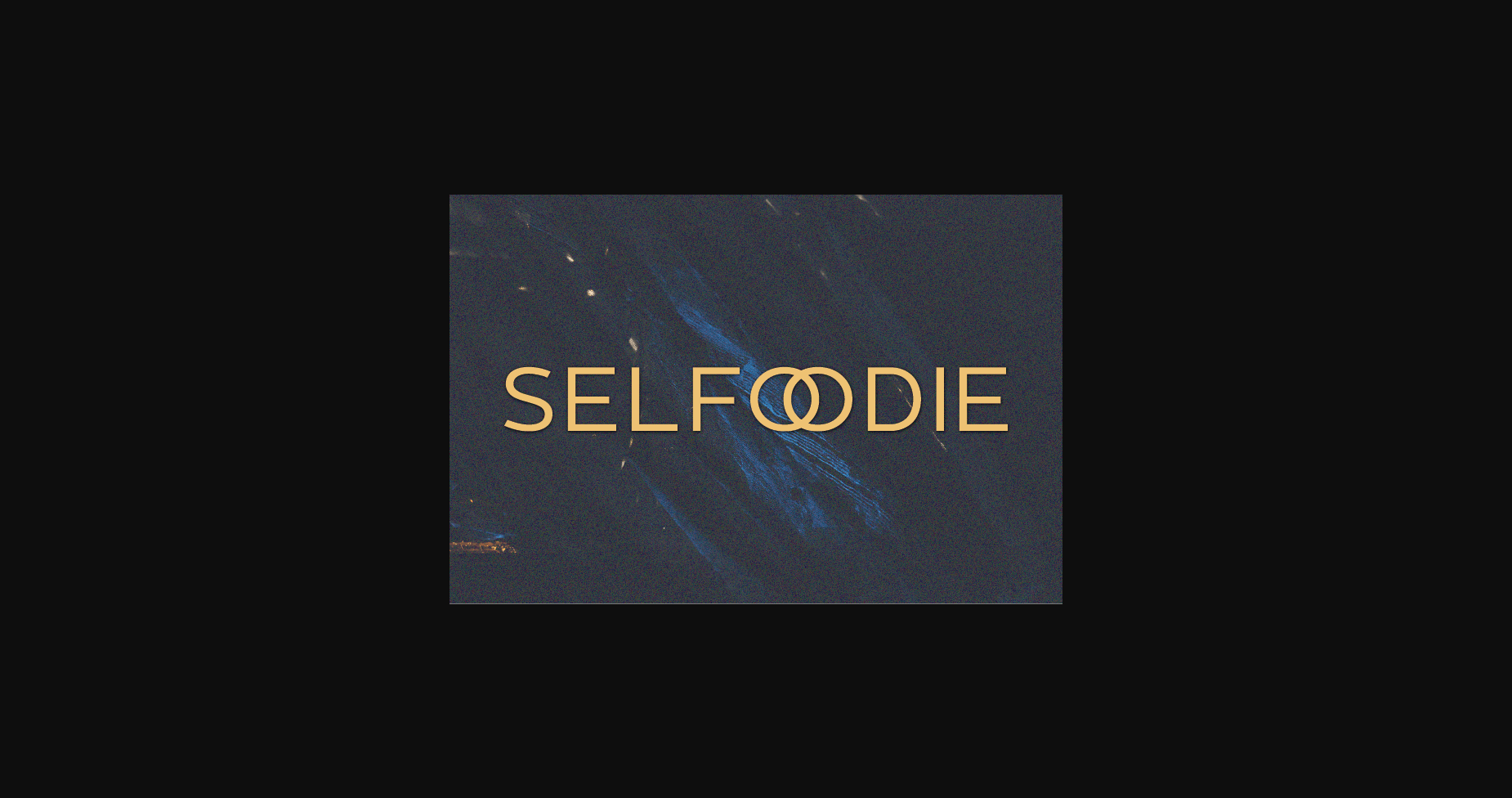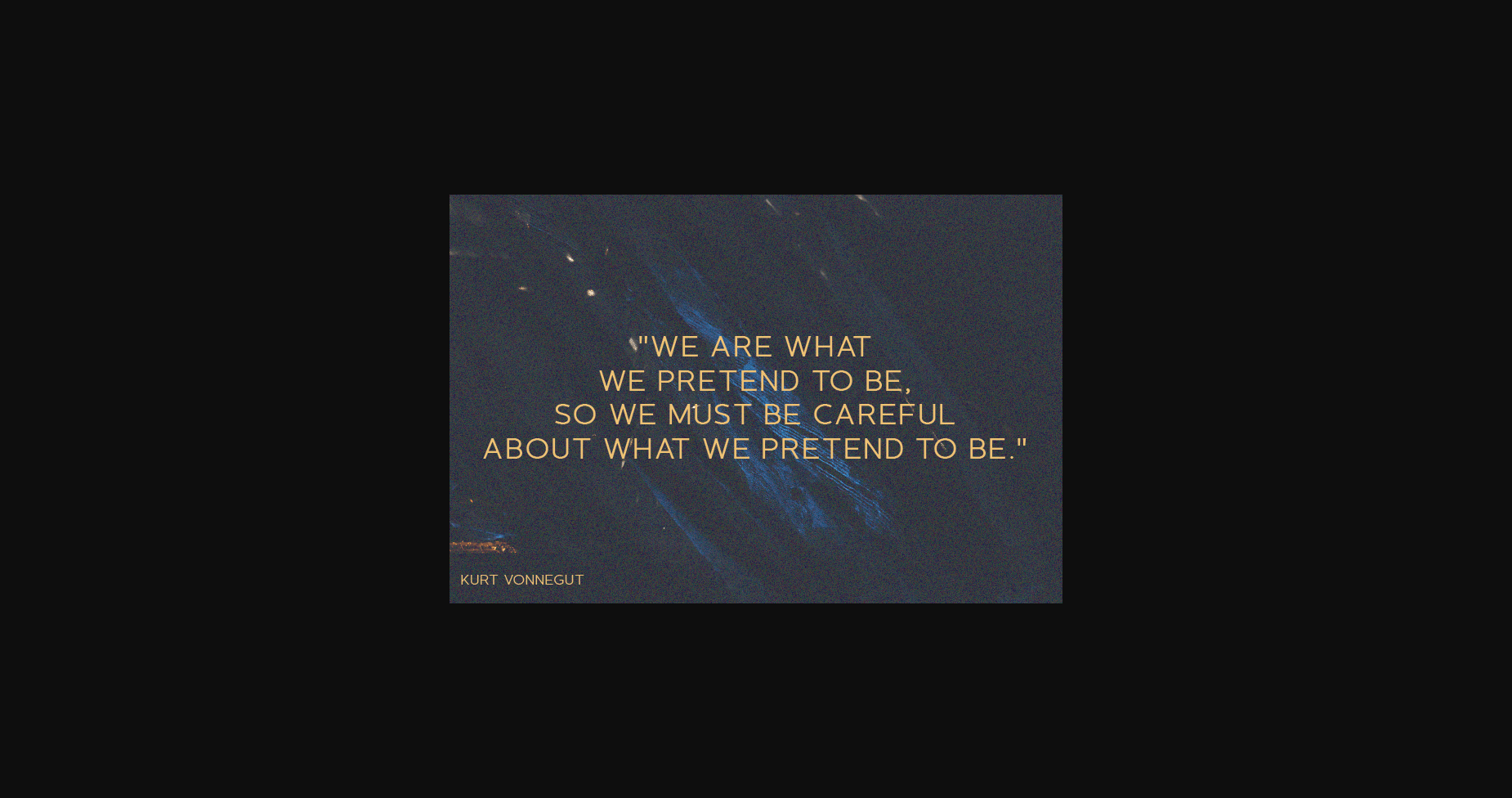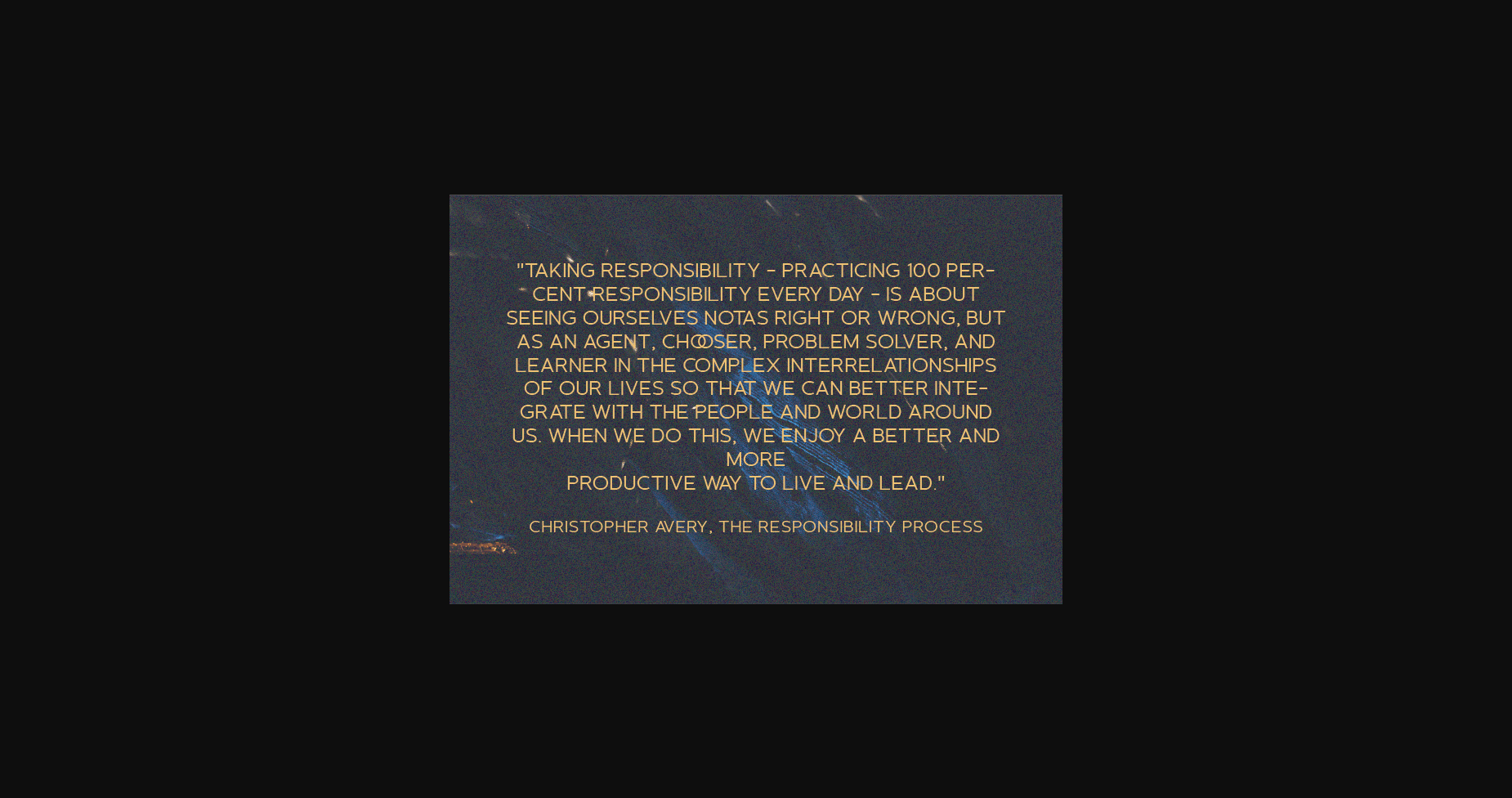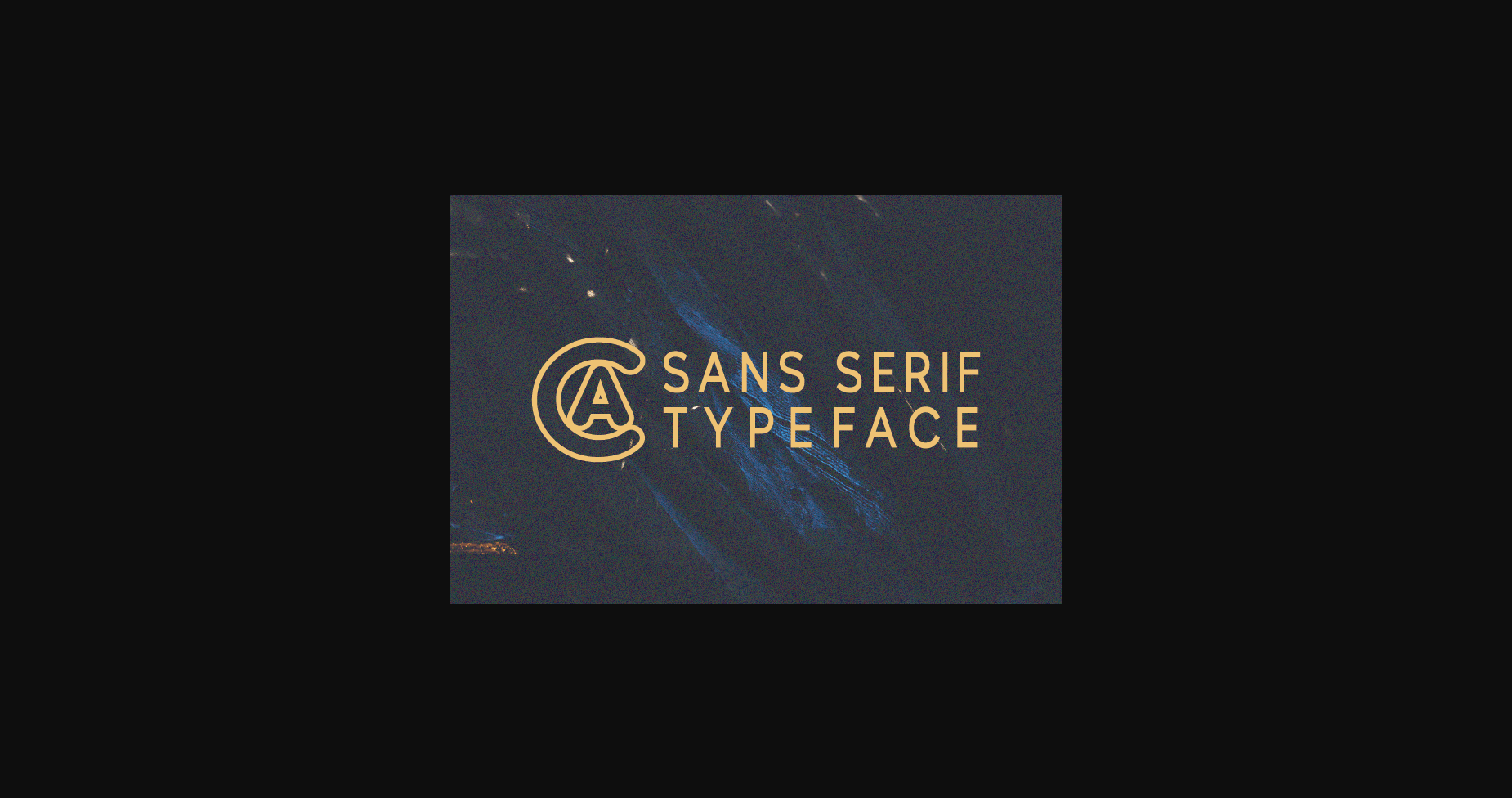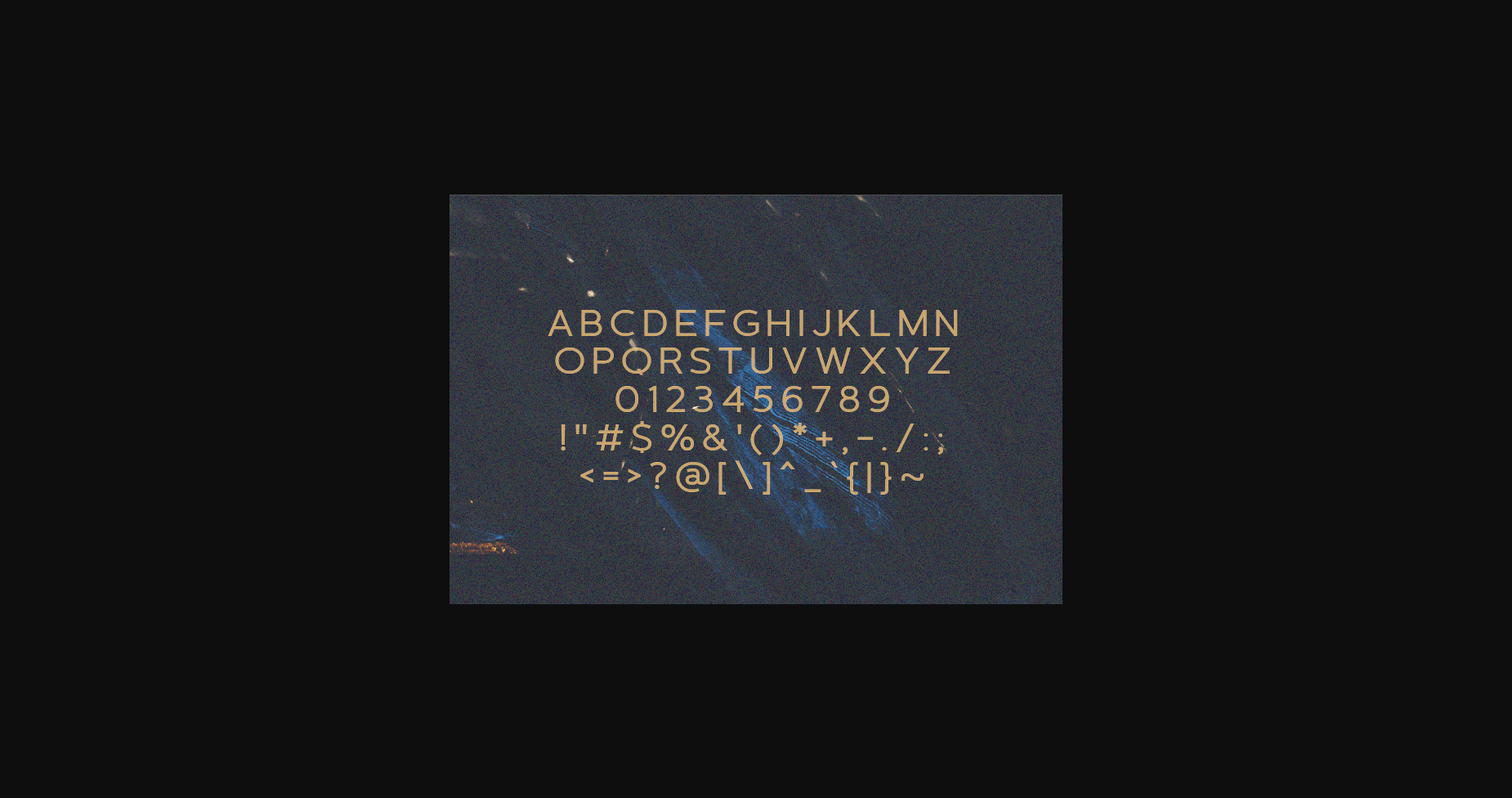
HomeSans Serif FontsSelfoodie Font Sans Serif Fonts Selfoodie Font FacebookXPinterestWhatsApp 1 of 7 ... Selfoodie Font Poster 2... Selfoodie Font Poster 3... Selfoodie Font Poster 4... Selfoodie Font Poster 5... Selfoodie Font Poster 6... Selfoodie Font Poster 7... About Selfoodie Font Selfoodie is a modern, classy sans serif typeface. Extremely versatile, this typeface is perfect for logos, weddings, invitations, quotes, advertisements, print, magazines, and more! DOWNLOAD NOW People also explored Doughnut Font Manchester Signature Font Kingdom Font Hyperdrive Font Beautiful Heartbeat Font Lush Garden Duo Font Reason Loves Font Farmhouse Monogram Font Dissolvable Font 347 0 TagsSelfoodie Font Previous articleLondone FontNext articleMoselove Font LEAVE A REPLY Cancel reply Comment: Please enter your comment! Name:* Please enter your name here Email:* You have entered an incorrect email address! Please enter your email address here Website: Save my name, email, and website in this browser for the next time I comment. Personal Use Free Starter Personal Use Free Read more about this font Casual Personal Use Free Read more about this font Bestlife Personal Use Free Read more about this font Bukhari Script Personal Use Free Read more about this font BLOG Free Fonts Risk: Why Free Fonts Can Be Dangerous for Designers Free Fonts Risk: Why Free Fonts Can Be Dangerous for Designers Using free fonts is a common practice in web and graphic design. However, the... Using Fonts in Digital Marketing: Tips to Strengthen Your Brand Identity 5 Fonts That Will Dominate Design Trends in 2026 Top 7 Google Fonts Alternatives for Faster and Privacy-Friendly Web Design (2025)